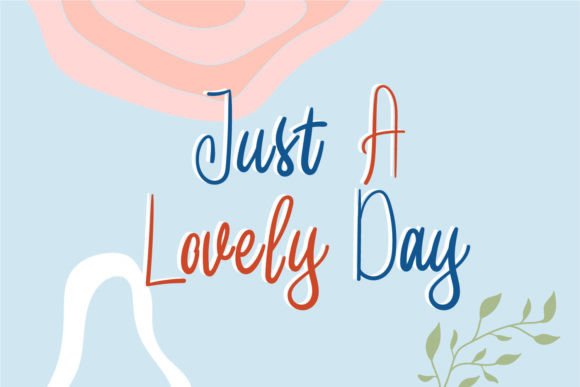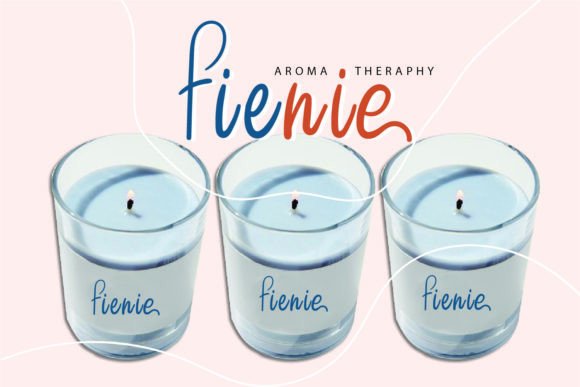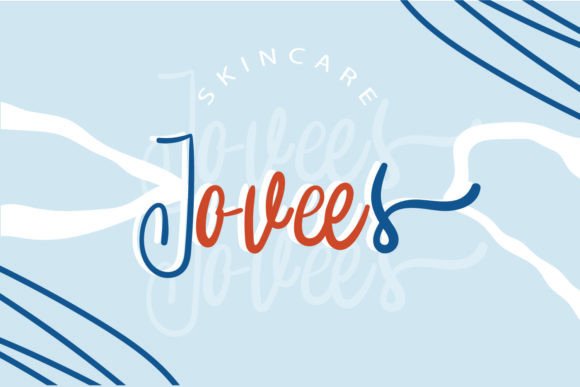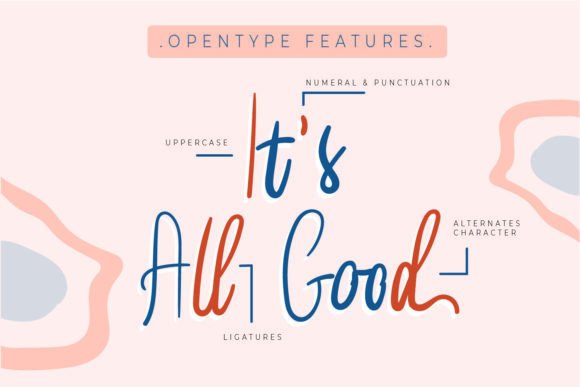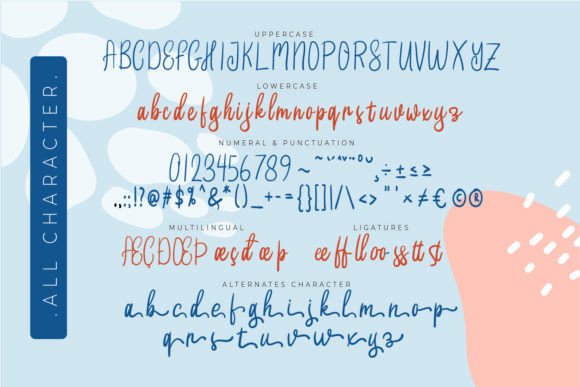
Stewashnia Handwritten Font – Elegant and Charming Script
The Stewashnia Handwritten Font is a beautiful script typeface that brings both elegance and charm to your designs. With its flowing strokes and graceful shapes, it is ideal for creative projects that need a handwritten touch. Whether you are designing wedding stationery, thank-you cards, or business materials, this font offers sophistication and warmth that make your work stand out.
A Timeless and Elegant Typeface
Stewashnia combines calligraphic elegance with modern usability. Its letters are well-balanced, ensuring readability without losing artistic beauty. This makes the Stewashnia Handwritten Font versatile enough for logos, invitations, greeting cards, and branding. Its timeless appeal guarantees that your designs will look stylish today and remain relevant in the future.
Perfect for Invitations and Branding
When it comes to creating memorable invitations and professional branding, this handwritten script is a reliable choice. Its graceful curves and natural flow add a personal touch, while its clarity keeps your message easy to read. Designers often choose Stewashnia for wedding invitations, business cards, and elegant promotional materials because it blends style with professionalism.
PUA Encoding for Full Creative Access
One of the most useful features of the Stewashnia Handwritten Font is its PUA encoding. This gives you full access to glyphs, swashes, and stylistic alternates without needing special design software. By experimenting with these decorative extras, you can customize your projects with unique flourishes and creative details.
Why Designers Love Stewashnia Font
Designers value fonts that combine elegance with usability. The Stewashnia Handwritten Font does exactly that. Its flowing script style makes it ideal for invitations and personal projects, while its readability ensures it works for professional branding as well. This balance of beauty and practicality makes it a valuable addition to any designer’s font library.
In summary, the Stewashnia Handwritten Font is an elegant, charming, and versatile script typeface. With its calligraphic influences, PUA encoding, and timeless appeal, it is perfect for invitations, cards, logos, and creative branding. Designers who want to elevate their work with sophistication should not miss the chance to download Stewashnia Handwritten Font and enjoy the elegance it brings to every project.